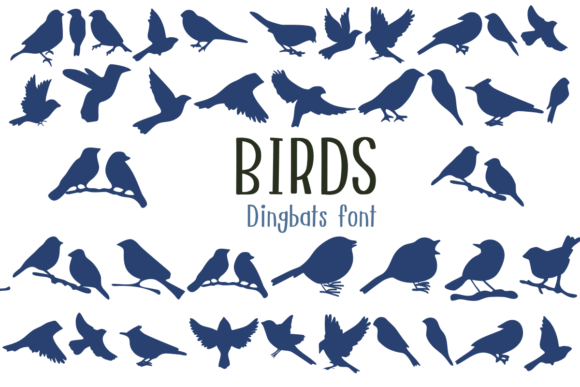
Birds Font: Add a Whimsical Touch to Your Designs with this Dingbat Font
Are you looking for a unique and creative way to add a touch of nature to your designs? Look no further than Birds Font, a dingbat font featuring a collection of bird silhouettes. This font is packed with various bird shapes that you can easily insert into your text, making it simple and fun to add a whimsical touch to your projects.
Key Features of Birds Font
- Collection of Bird Silhouettes: Birds Font includes a wide range of bird silhouettes, from common birds like robins and sparrows to more exotic species like parrots and eagles.
- Easily Insert into Text: With Birds Font, you can easily insert bird silhouettes into your text, making it perfect for creating invitations, posters, and other designs.
- Whimsical Touch: The bird silhouettes in Birds Font add a playful and whimsical touch to your designs, making them perfect for projects that require a bit of personality.
- Perfect for Bird Lovers: Whether you’re a bird enthusiast or just love nature, Birds Font is perfect for anyone who wants to add a touch of the outdoors to their designs.
Uses of Birds Font
Birds Font is a versatile font that can be used in a variety of projects, including:
- Invitations: Add a touch of nature to your invitations with Birds Font. Perfect for baby showers, birthday parties, and other celebrations.
- Posters: Create eye-catching posters with Birds Font. Perfect for advertising outdoor events, promoting environmental causes, or simply adding a touch of personality to your designs.
- Social Media Graphics: Add a whimsical touch to your social media graphics with Birds Font. Perfect for creating engaging and shareable content.
- Stationery: Add a touch of personality to your stationery with Birds Font. Perfect for creating custom notebooks, journals, and other paper products.
Benefits of Using Birds Font
There are many benefits to using Birds Font in your designs. Here are a few:
- Unique and Creative: Birds Font offers a unique and creative way to add a touch of nature to your designs.
- Easy to Use: Birds Font is easy to use and can be easily inserted into your text.
- Versatile: Birds Font can be used in a variety of projects, from invitations and posters to social media graphics and stationery.
- Fun and Whimsical: Birds Font adds a playful and whimsical touch to your designs, making them perfect for projects that require a bit of personality.
Tips for Using Birds Font
Here are a few tips for using Birds Font in your designs:
- Experiment with Different Sizes: Experiment with different sizes and colors to find the perfect combination for your design.
- Combine with Other Fonts: Combine Birds Font with other fonts to create a unique and eye-catching design.
- Use in Combination with Images: Use Birds Font in combination with images to create a visually appealing design.
- Keep it Simple: Don’t overdo it – keep your design simple and clean to ensure that the bird silhouettes stand out.
Birds Font is a unique and creative dingbat font that offers a wide range of bird silhouettes that can be easily inserted into your text. Perfect for bird lovers and anyone wanting to add a whimsical touch to their projects, Birds Font is a versatile font that can be used in a variety of designs, from invitations and posters to social media graphics and stationery. With its ease of use, unique and creative designs, and fun and whimsical touch, Birds Font is a great addition to any designer’s toolkit.